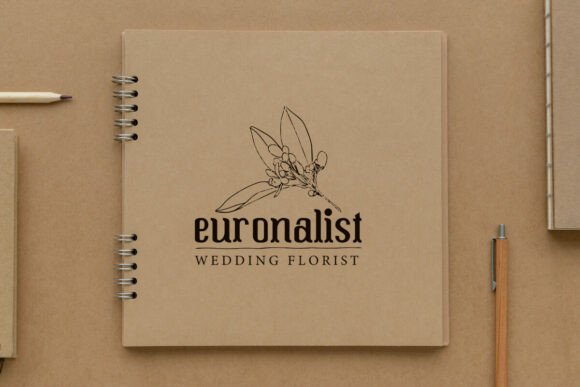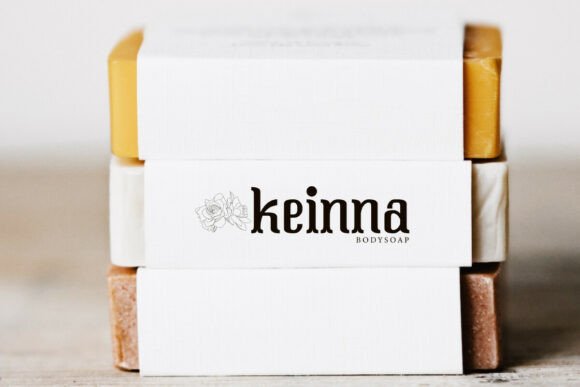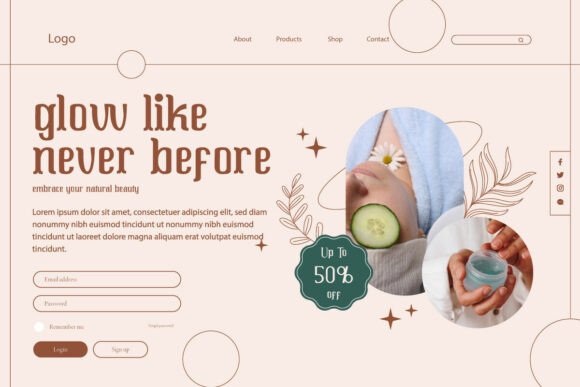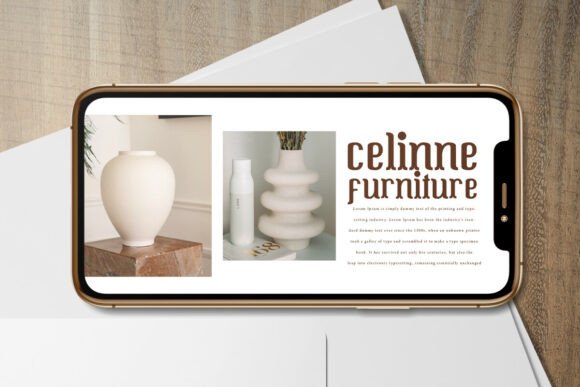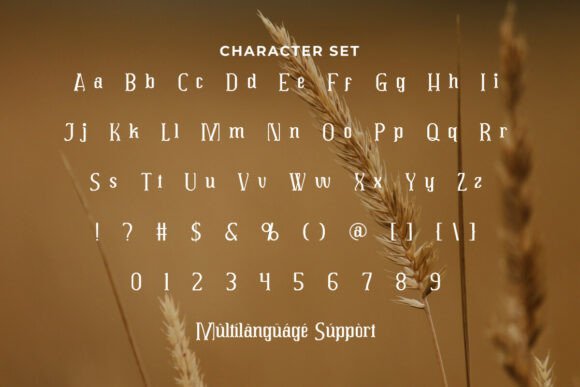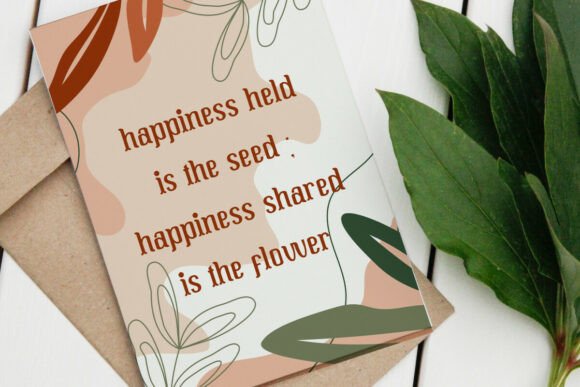
Euronalist Font – A Vintage-Inspired Serif with a Modern Edge
Have you ever been in the middle of a design project, pouring your heart and soul into it, only to get stuck on one thing: finding the perfect font? I certainly have. It was during one of those moments, working on a vintage-themed branding project, that I stumbled upon the Euronalist font. Its unique blend of retro charm and minimalist elegance immediately caught my eye, and I knew I had to share it with fellow designers and creative hobbyists.
A Personal Encounter with Euronalist
I was working on a branding project for a local café that wanted to evoke the feel of the American West. I had tried several fonts, but none seemed to capture the right balance of vintage flair and modern sophistication. That was until I discovered Euronalist. Its bold, stylized letterforms and clean lines seemed to bring the entire design together. I was impressed not only by its aesthetic but also by its versatility – it worked beautifully for everything from the logo to the menu and packaging.
- ✨ Retro charm with a modern twist: Euronalist brings back the bold typography of the vintage American sheriff era but with a clean and minimalist approach that feels fresh and contemporary.
- ✅ Versatility: This font is incredibly versatile, suitable for a wide range of projects from bold branding to refined editorial work.
- ✅ Complete character set: Euronalist includes a complete set of uppercase and lowercase characters, numerals, and a broad range of punctuation, making it practical for various design needs.
While Euronalist is a fantastic font, there are a few things to keep in mind:
- ⚠️ Legibility at small sizes: Like many serif fonts, Euronalist may lose some legibility at very small sizes. It’s best used at larger sizes where its details can shine.
- 🤔 Overuse of stylistic alternates: With a font as stylish as Euronalist, there’s a temptation to use all the stylistic alternates. However, moderation is key to maintaining a cohesive look.
The Backstory of Euronalist
Euronalist was inspired by the bold typography of the American West, particularly from the vintage sheriff era. The designer aimed to capture the rugged charm and elegance of that period, blending it with a modern, minimalist approach. The result is a font that feels both nostalgic and fresh.
Q: What type of projects is Euronalist best suited for?
A: Euronalist is versatile and can be used for a variety of projects including logos, flyers, invitations, labels, magazine covers, posters, product packaging, menus, marketing materials, quotes, signage, stationery, and website pages.
Q: Is Euronalist suitable for body text?
A: While Euronalist can be used for body text, it’s primarily designed for headings and titles where its stylized letterforms and vintage charm can be fully appreciated. For body text, a more traditional serif font might be more readable.
Q: Does Euronalist include OpenType features?
A: Yes, Euronalist includes OpenType features such as ligatures and stylistic alternates, allowing for a high degree of customization and typographic control in compatible software.